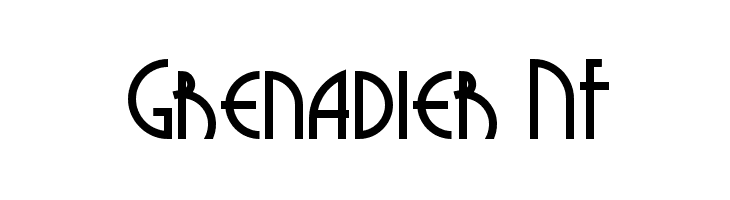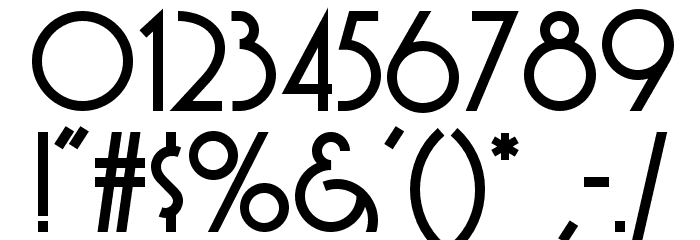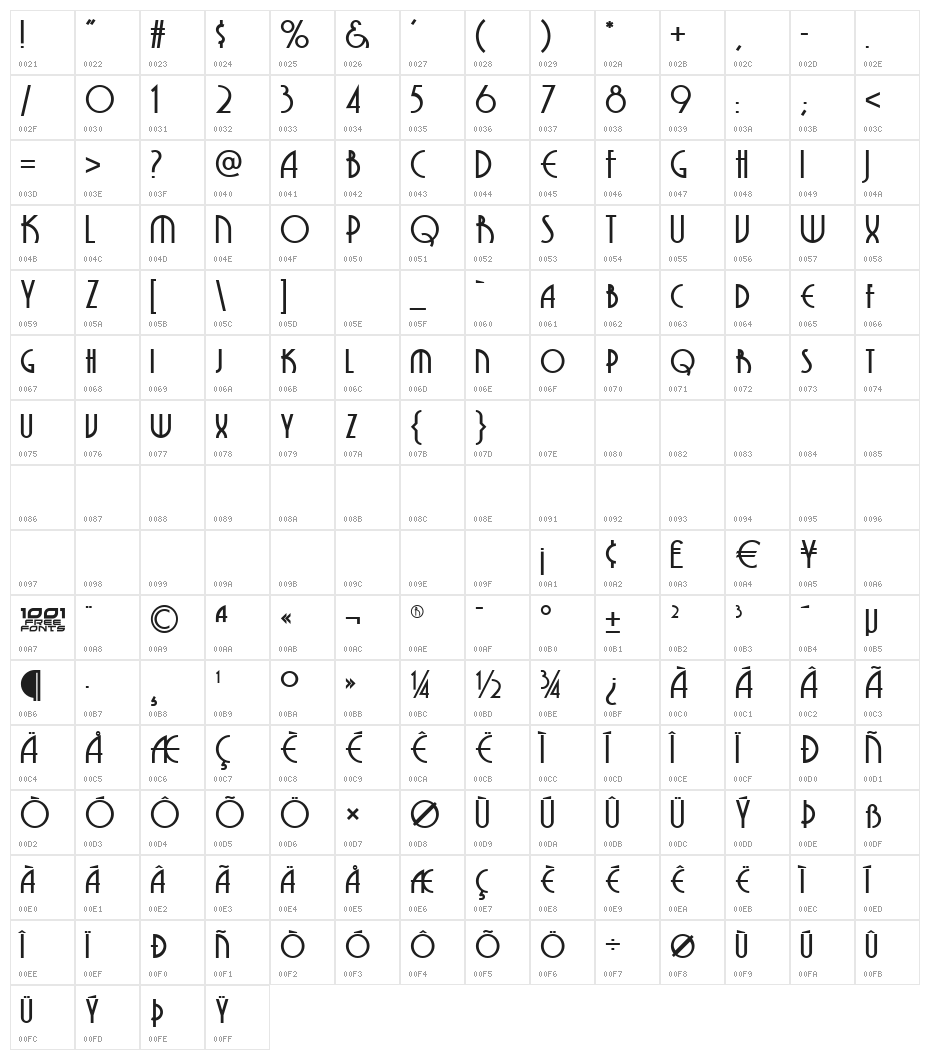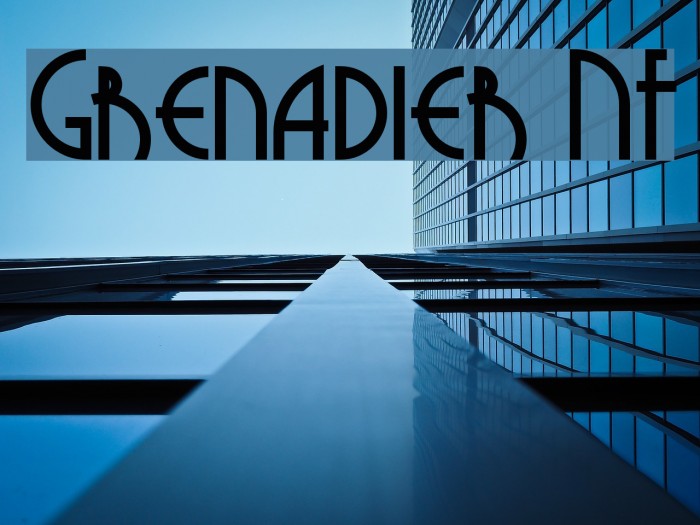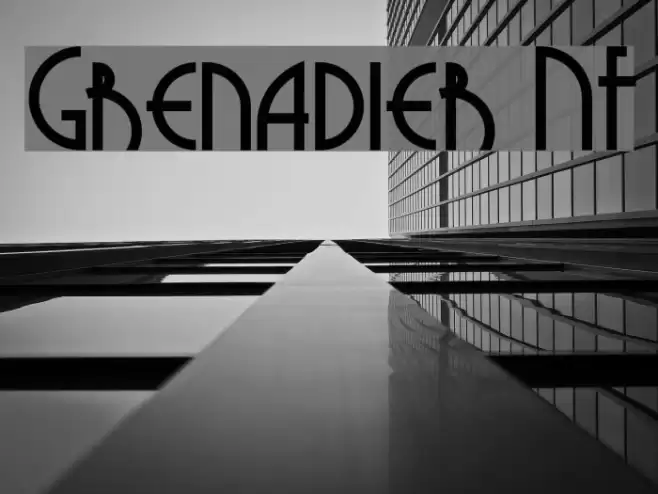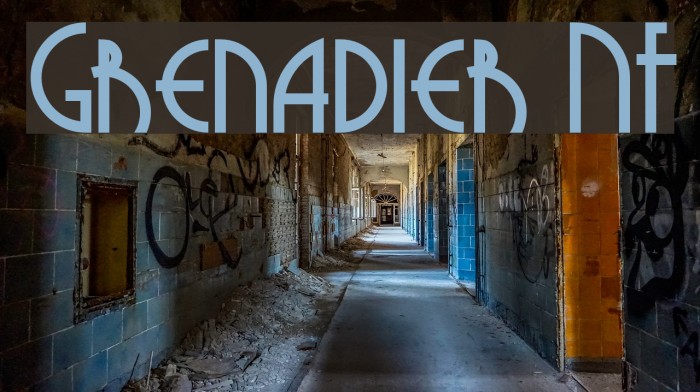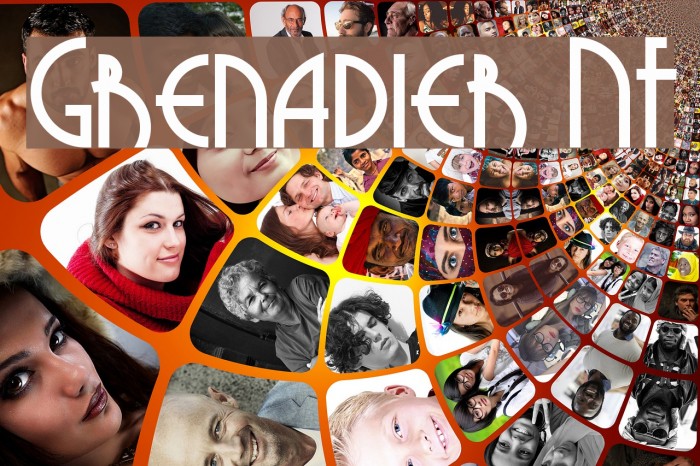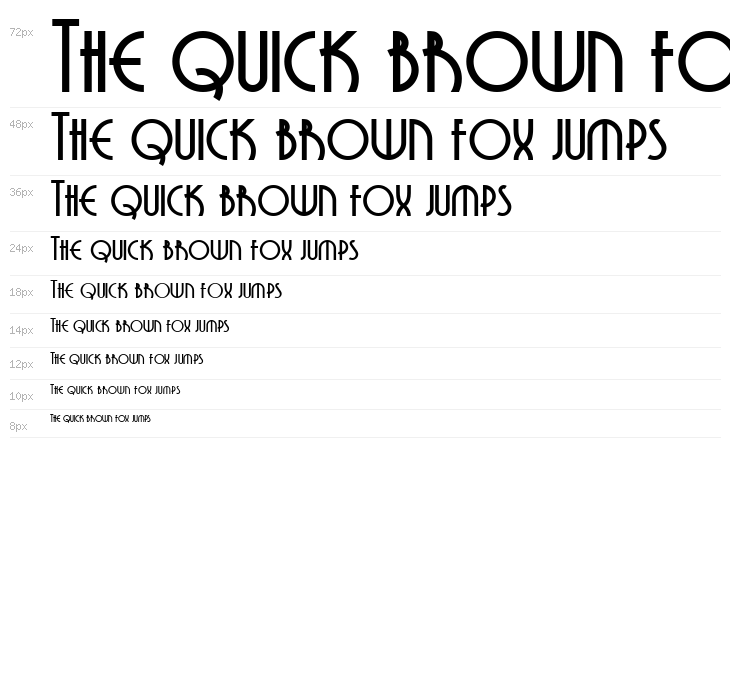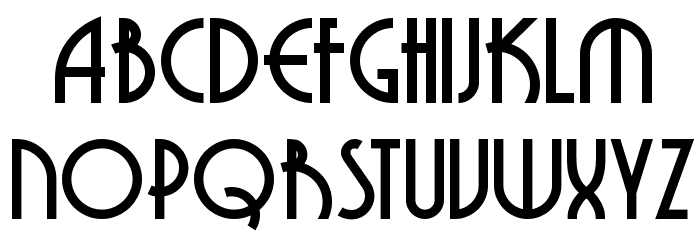
Grenadier NF Font
Grenadier NF Description
This font features a bold and geometric style with a distinct Art Deco influence. The characters are constructed with clean lines and sharp angles, giving them a modern and sophisticated appearance. The uppercase letters are particularly striking, with unique design elements such as the curved crossbars on the 'A' and 'H'. The numerals are equally bold, maintaining the geometric theme with a consistent stroke width. Special characters are designed to complement the overall aesthetic, making this font suitable for a variety of design applications.
| Proposed Projects | Ideal for branding, posters, and editorial design where a modern and sophisticated look is desired. |